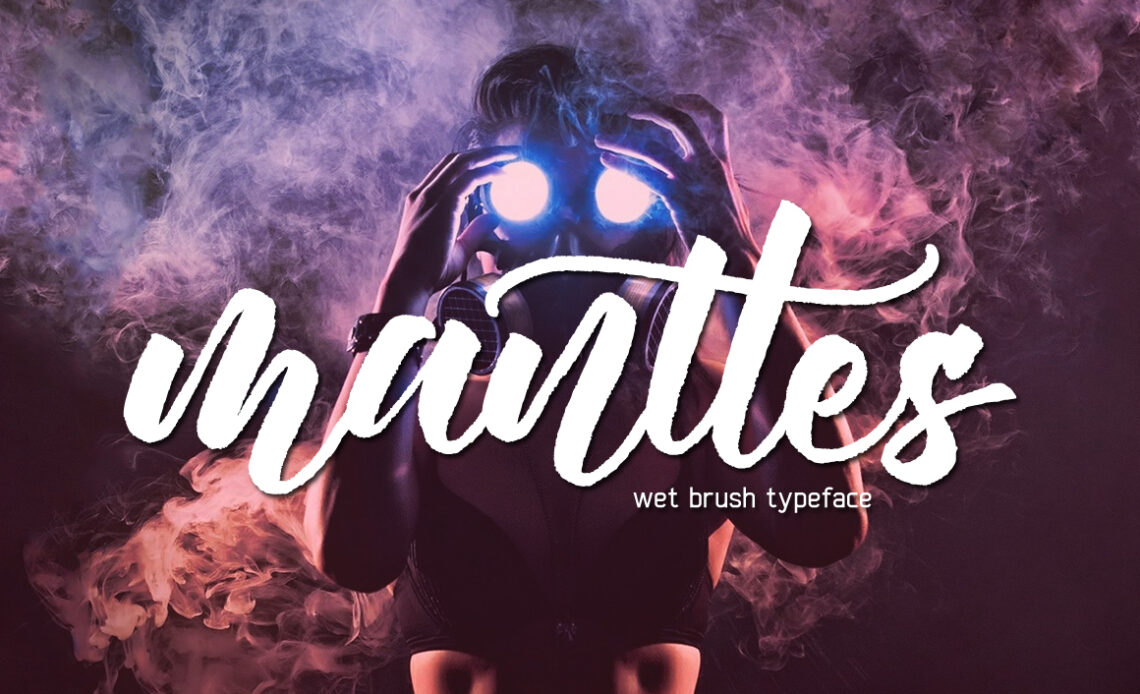
Introducing Manttes Font: An Irresistible Fusion of Elegance and Charm
Step into a world of elegance and grace with Manttes Font, a modern calligraphic script that flows with beauty and charm. Crafted by the skilled hands of Atjcloth Studio, Manttes is a handwritten masterpiece that captures the essence of timeless sophistication. Its graceful strokes and delicate curves add a touch of femininity and warmth to your designs, making them stand out from the crowd.
Let Manttes Font Cast a Spell of Beauty on Your Projects:
Unleash Your Creativity: With Manttes Font's versatile range of applications, your imagination knows no bounds. Whether you're designing wedding invitations, branding kits, social media posts, or any other creative endeavor, Manttes effortlessly complements your vision.
Add a Personal Touch: Manttes Font's natural and organic feel invites you to infuse a personal touch into your designs. Its enchanting strokes mimic handwritten text, giving your projects an intimate and heartfelt aura.
Elevate the Ordinary to Extraordinary: Transform the mundane into the magnificent with Manttes Font. Its ability to elevate logos, posters, and marketing materials makes it the perfect choice for businesses seeking to leave a lasting impression.
Experience the Allure of Manttes Font:
Unleash Your Inner Artist: Discover the artist within as you witness Manttes Font's ability to transform ordinary text into stunning works of art. Its intricate details and flowing lines add a touch of magic to every character, creating a captivating visual experience.
Find Harmony in Imperfection: Embrace the beauty of imperfection with Manttes Font. Its charming hand-drawn style celebrates the uniqueness and authenticity of natural handwriting, adding a touch of humanity to your designs.
Make a Statement with Confidence: With Manttes Font, confidence radiates from every letter. Its bold yet delicate strokes command attention, leaving an unforgettable impression that lingers in the minds of your audience.
Prepare to Be Enchanted:
Embark on a Typographic Journey: Manttes Font invites you on a typographic expedition, where each letter becomes a portal to a world of enchantment. Its elegant curves and enchanting strokes transport you to a realm of visual wonder.
Live the Manttes Experience: Indulge in the Manttes experience, where typography transcends its functional purpose and becomes an art form. Its captivating beauty and undeniable charm will ignite your passion for design, leaving you spellbound.